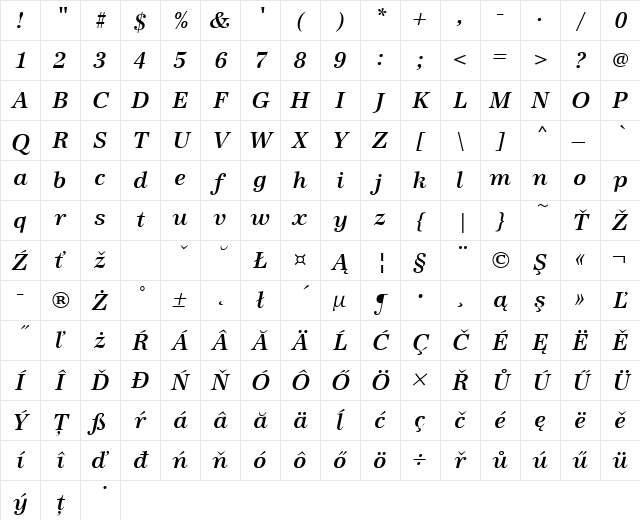
URWAntiquaTEEMed is a composed and adaptable typeface that performs quietly and consistently across a wide range of design contexts. The slanted form adds forward momentum and visual energy.
Pro Tip: Use URWAntiquaTEEMed for emphasis, pull quotes, and subheadings where its slanted energy can add rhythm to the layout.